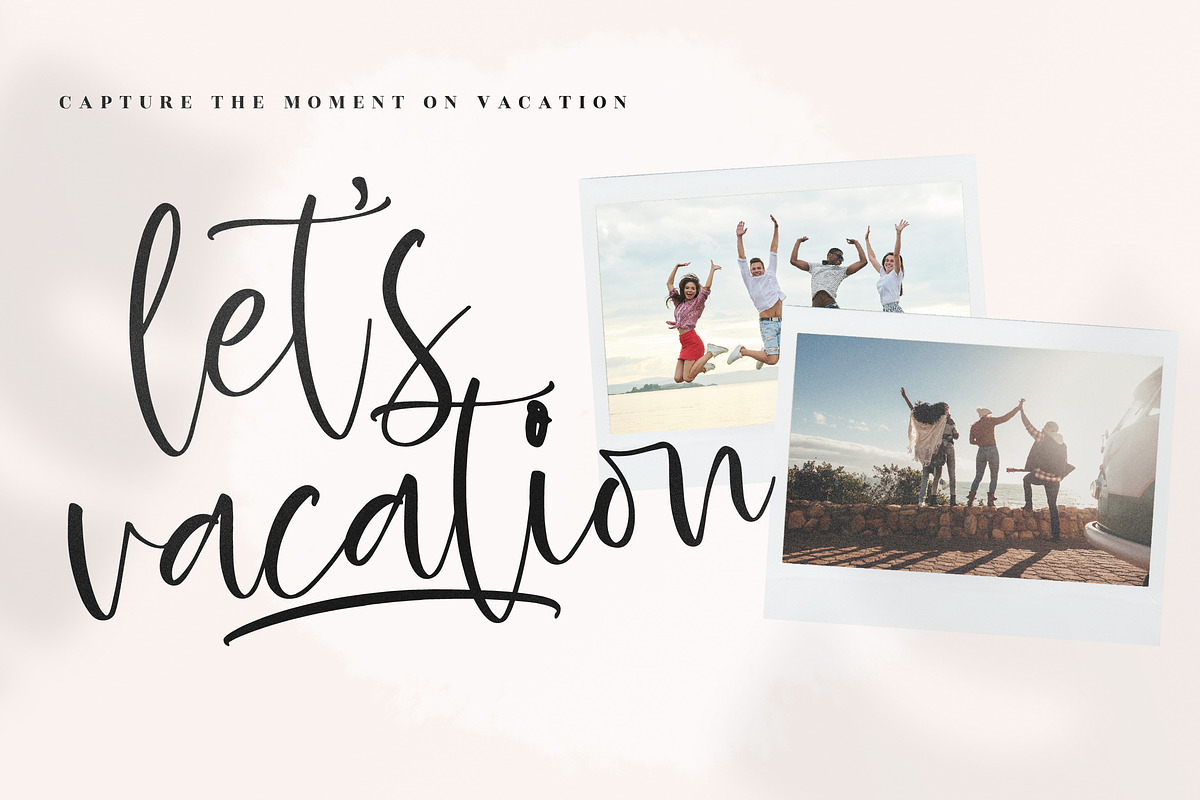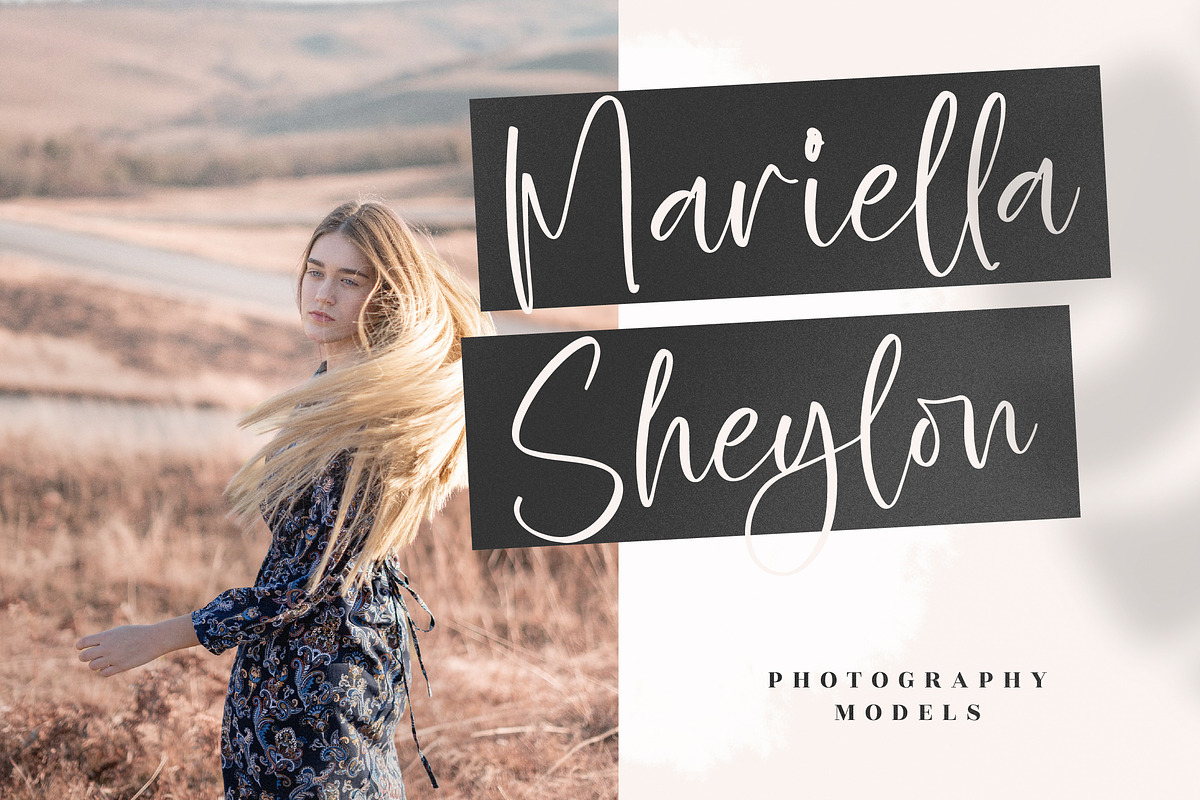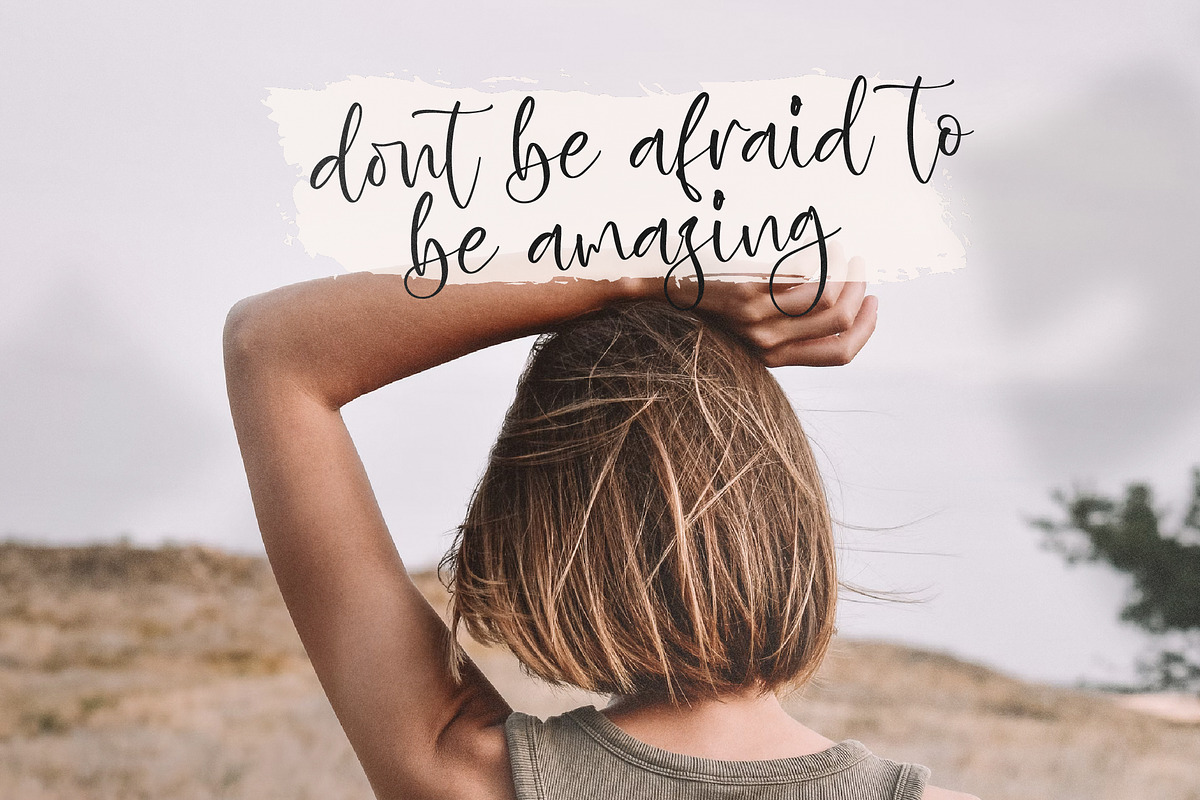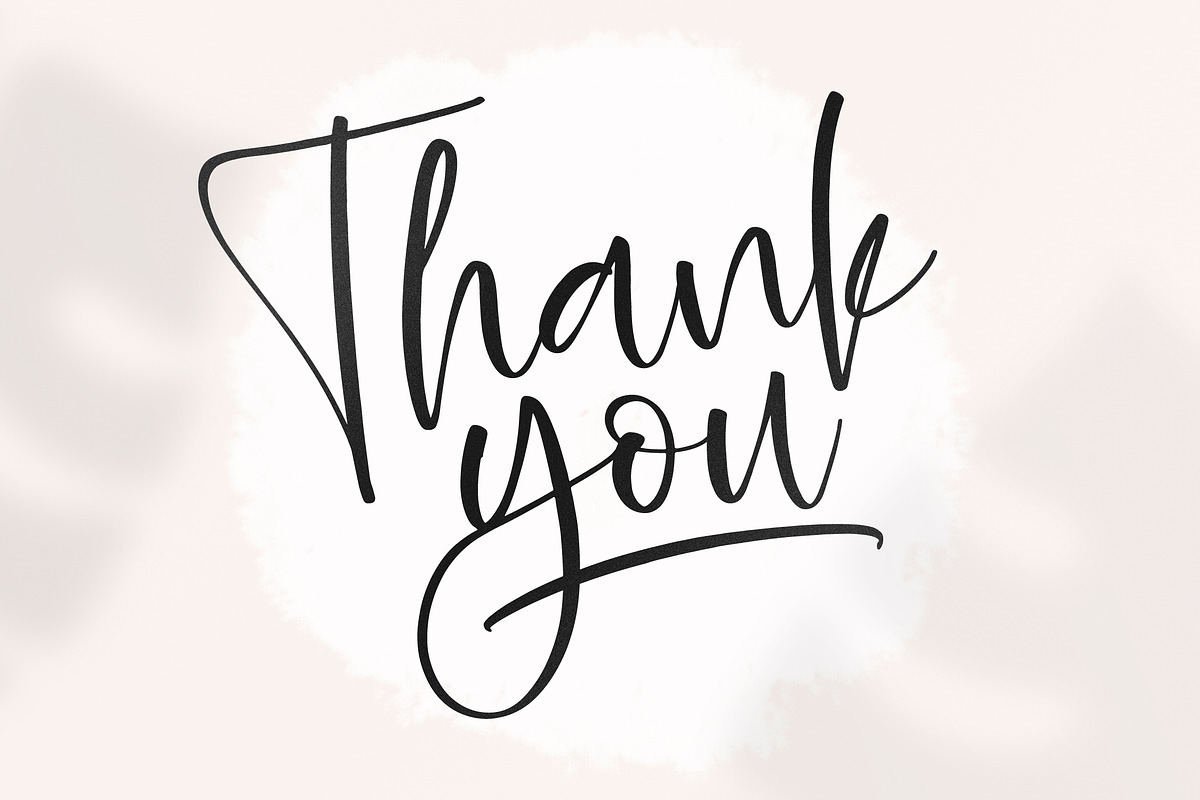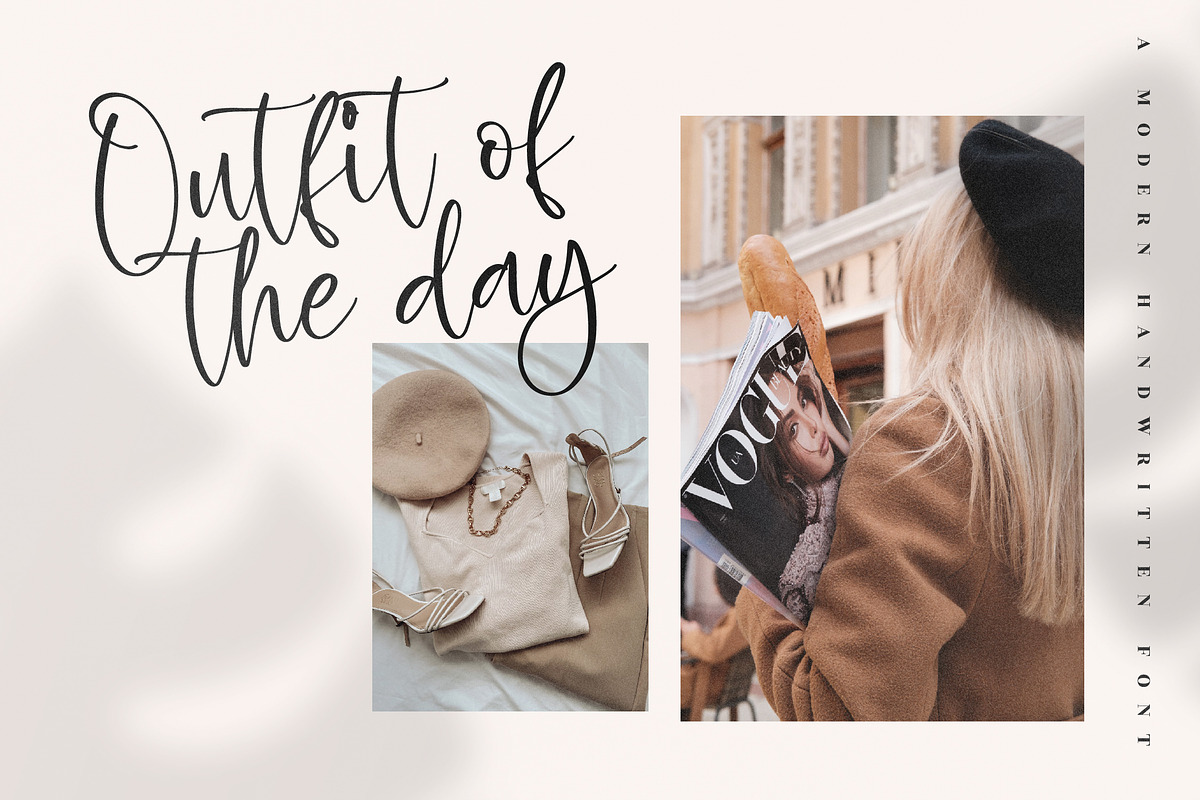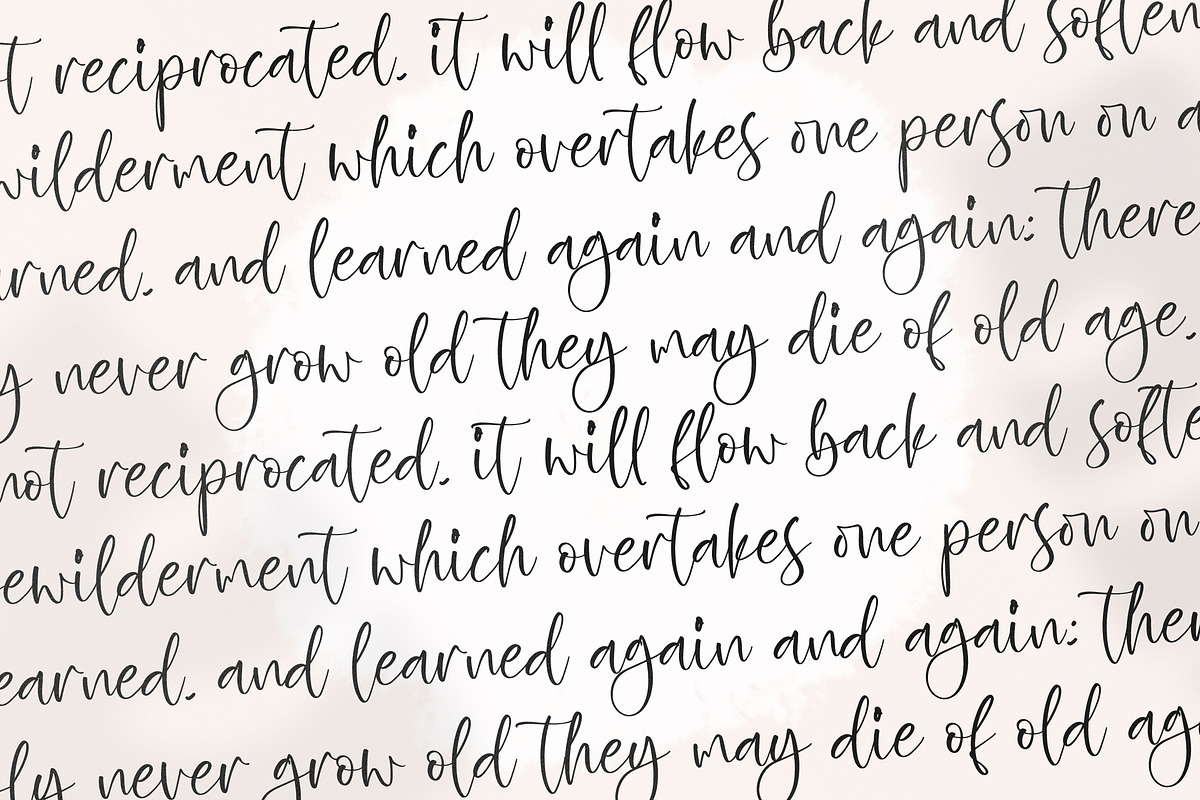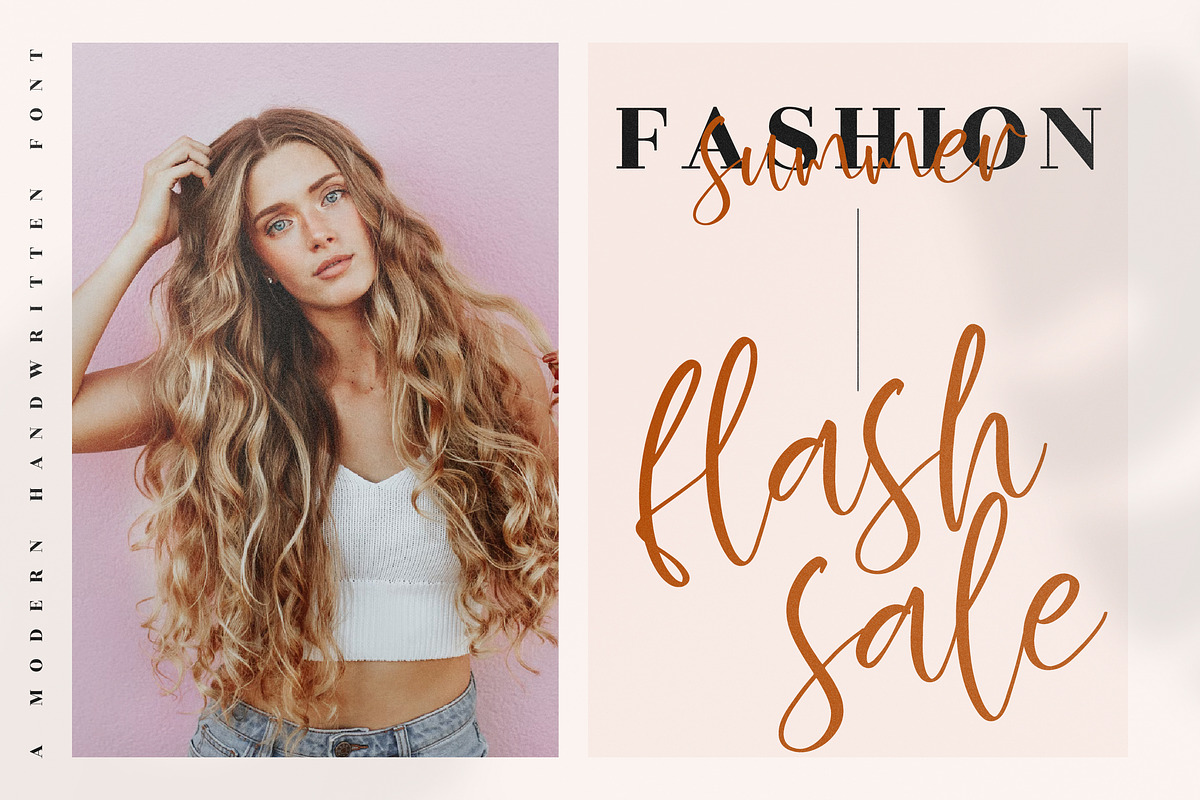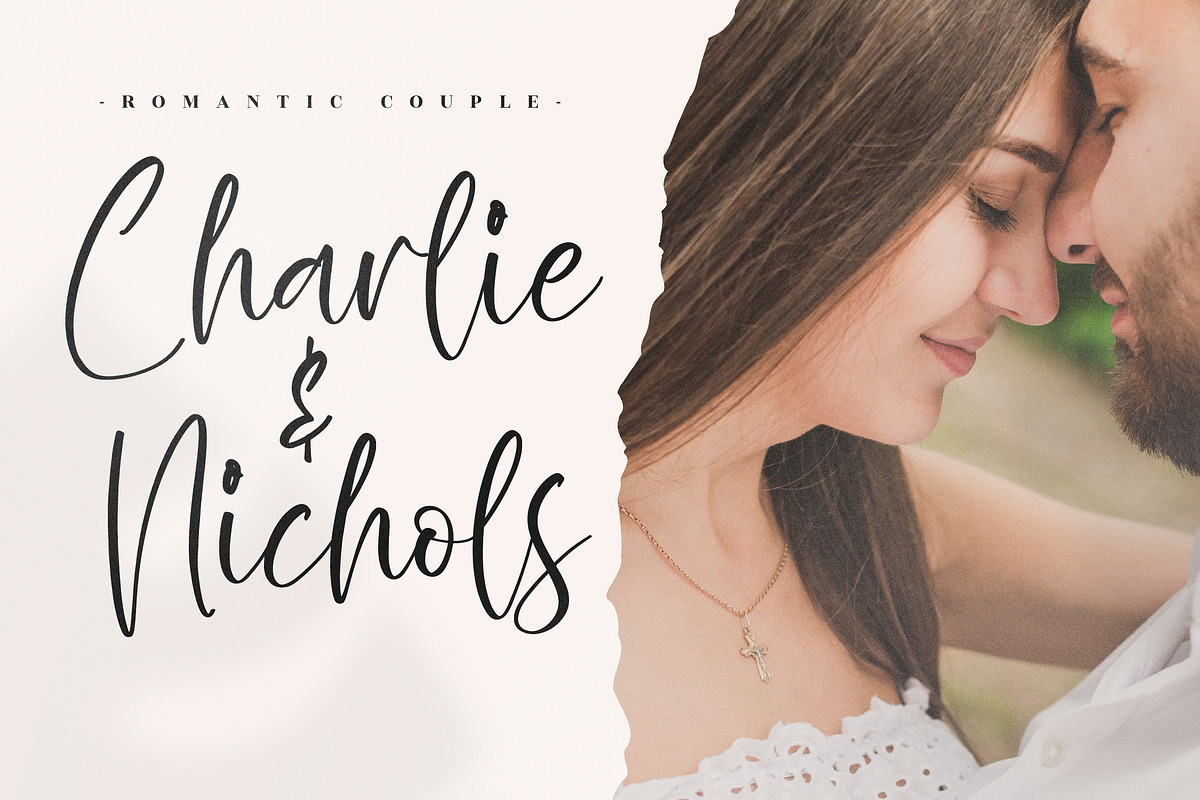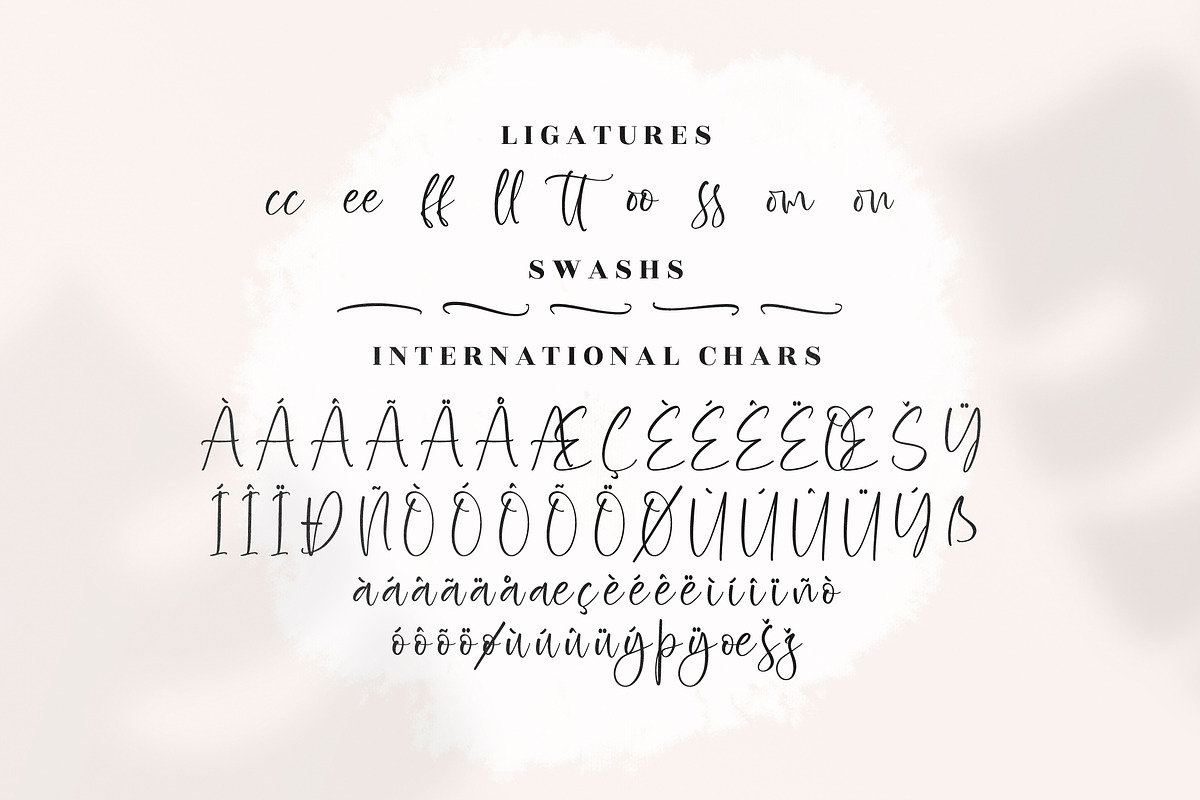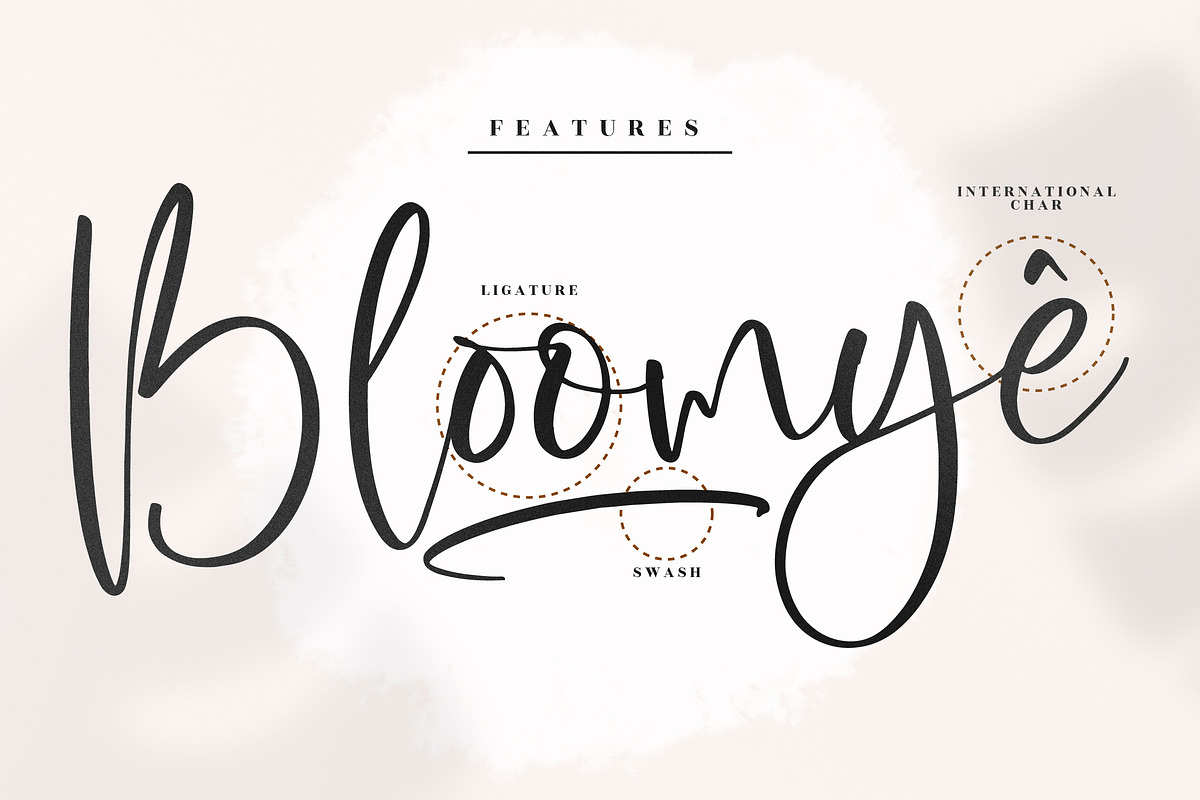
Zofia Larsonty Modern Handwritten
Zofia Larsonty – Modern Handwritten Font , from Glorytype Studio, suitable for any projects such as: logos, branding projects, homeware designs, product packaging, mugs, quotes, posters, shopping bags, t-shirts, book covers, name card, invitation cards, greeting cards, label, photography, watermark, special events, and all your other lovely projects that need a beautiful script taste.